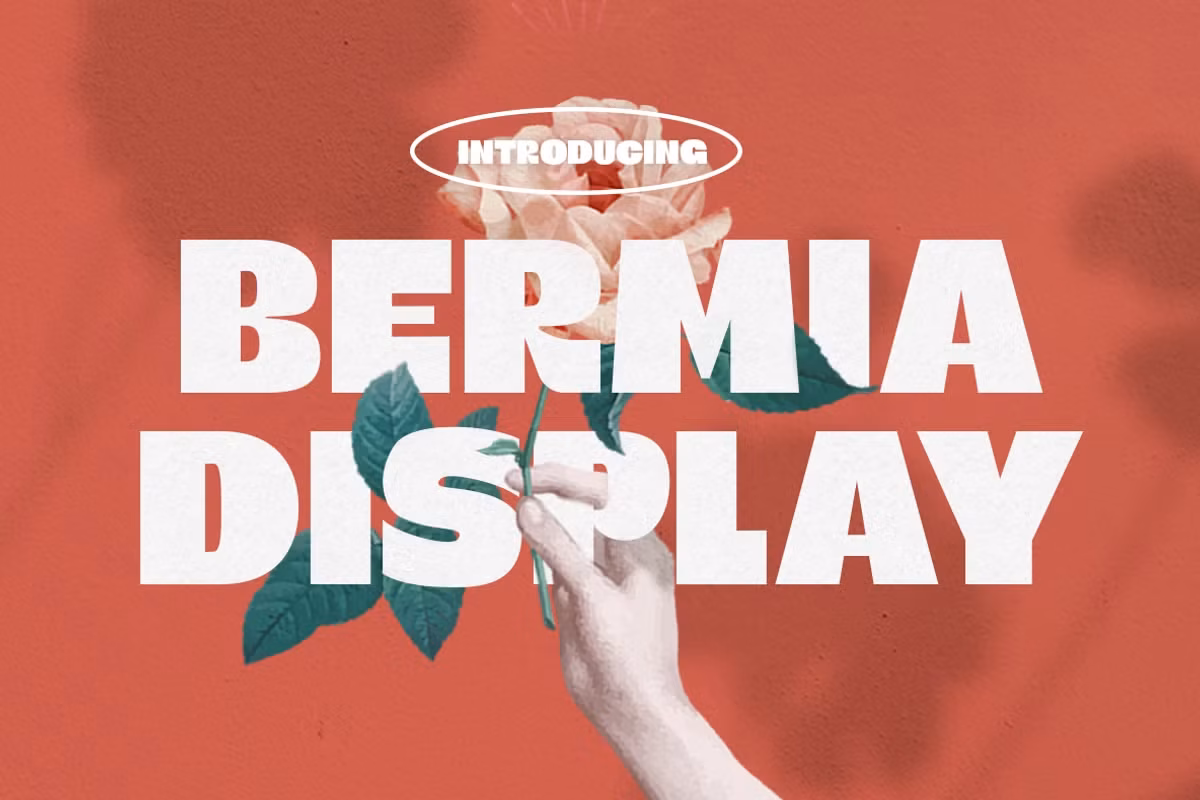
Bermia Font Free Download is a modern and eye-catching display typeface designed to make a bold statement. With its geometric shapes, stylish curves, and strong letterforms, Bermia is ideal for branding, editorial headlines, posters, logos, packaging, and digital interfaces that demand attention and creativity.
Crafted with a balance of playfulness and precision, Bermia Font Free Download stands out in both print and screen environments. Its contemporary character makes it a great fit for fashion, tech, or lifestyle brands looking for a distinctive, modern voice.
Bermia’s versatility allows it to shine as a standalone display font or as part of a more complex typographic system. Pair it with minimal sans-serifs or clean serif fonts for contrast and depth in your compositions.